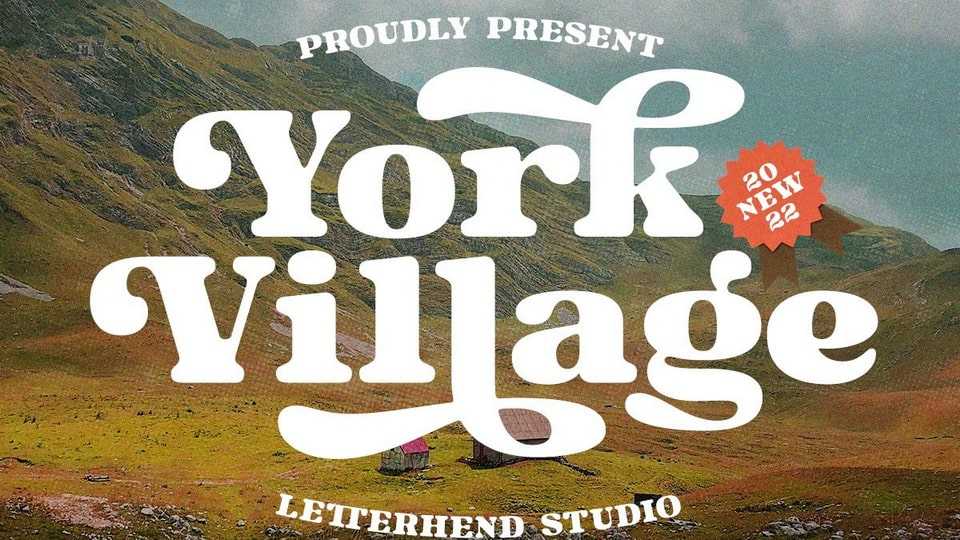
Download York Village font, a stylish retro typeface with swashes. The stylistic alternates and ligatures make York Village font event more unique and stands from the crowd, with 70s vibe.